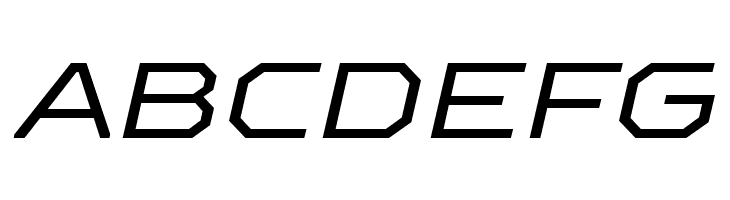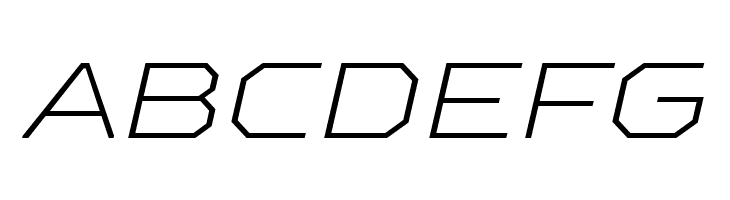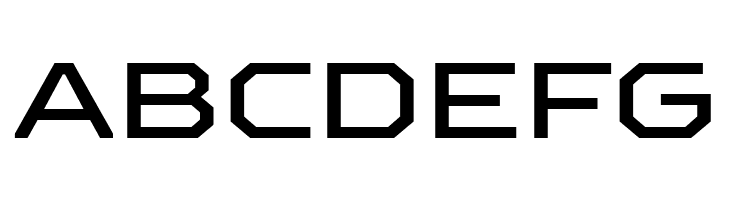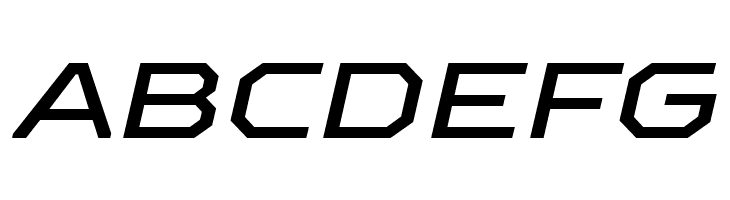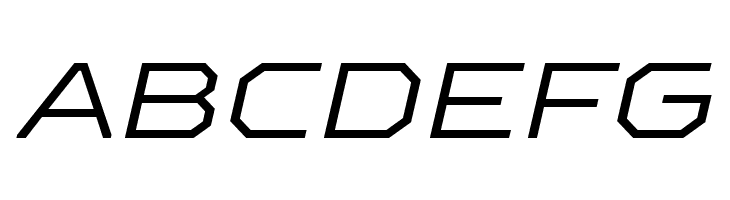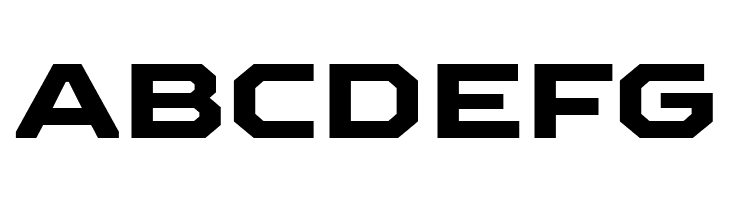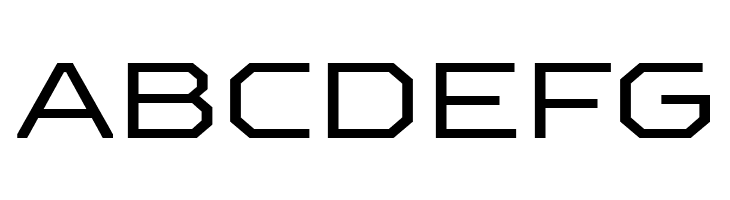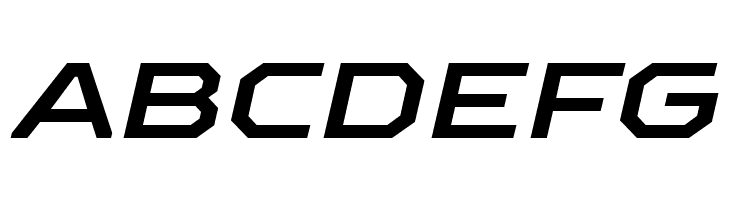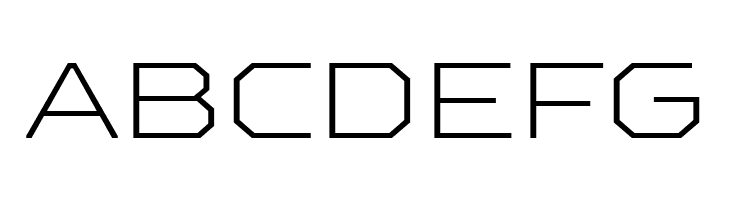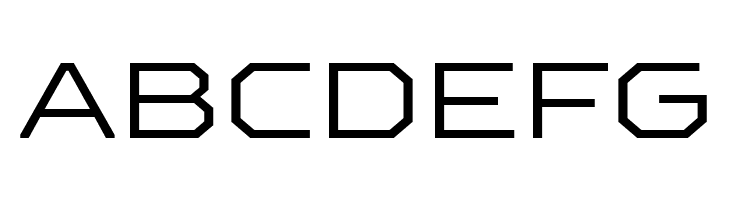
A modern, angular font with a dynamic and futuristic design.
A geometric, angular font with a modern, italicized style.
A geometric, octagonal font with a modern and futuristic style.
A geometric, italicized font with octagonal shapes and a modern, tech-inspired style.
A geometric, modern font with square-like characters and clean lines.
A geometric, angular font with a modern, italicized style.
A geometric, modern font with octagonal shapes and clean lines.
A geometric, angular font with octagonal shapes and a modern aesthetic.
A geometric, angular font with a modern, slanted design.